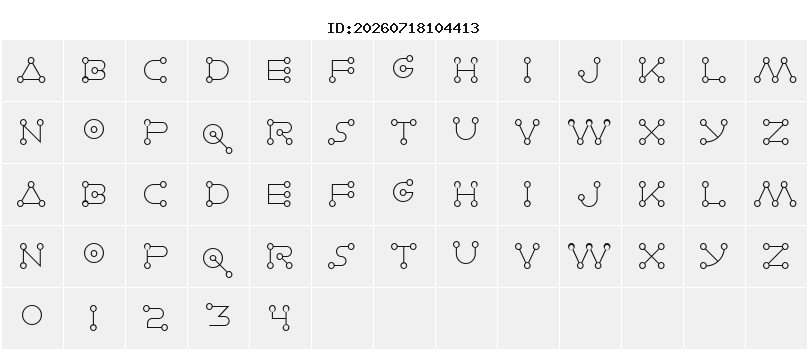
Celestial Alphabet Preview
About Celestial Alphabet.ttf
Celestial Alphabet.ttf is a modern, elegant sans-serif font designed for ultimate readability and visual harmony. Perfect for branding, headlines, web design, and print materials.